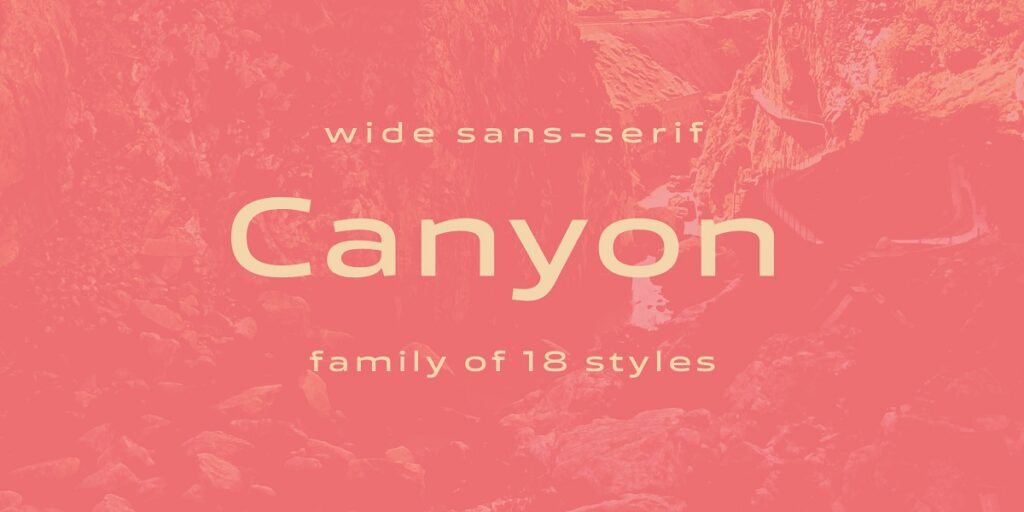
Canyon Font
Canyon Font Family is a classy minimal rounded sans serif typeface. Canyon will be perfect for packaging, presentations, logo, headlines, lettering, posters, branding, quotes, titles, magazines headings, web layouts, advertising, invitations, packaging design, books, and nearly any creative design.
Canyon Sans Serif Font Family